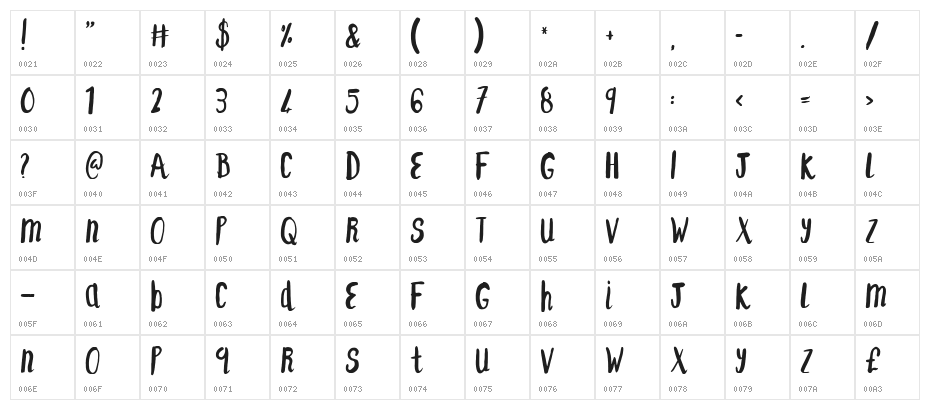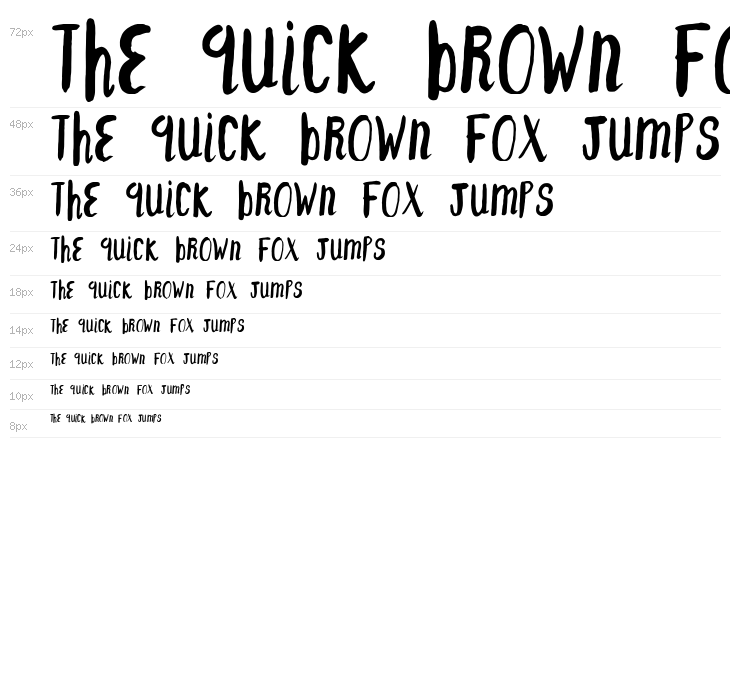
F... SAINT-TROPEZ-ALT Font
F... SAINT-TROPEZ-ALT Description
This font features a playful and dynamic handwritten style, characterized by its bold and slightly irregular letterforms. The strokes are thick and exhibit a casual, artistic flair, giving it a lively and informal appearance. The uppercase and lowercase letters maintain a consistent style, with a slight slant that adds to its energetic feel. The numerals and special characters follow the same design principles, ensuring a cohesive look across all elements. This font is ideal for projects that require a touch of creativity and personality, such as posters, invitations, or branding materials.
Proposed ProjectsPerfect for creative projects like posters, invitations, and branding materials.